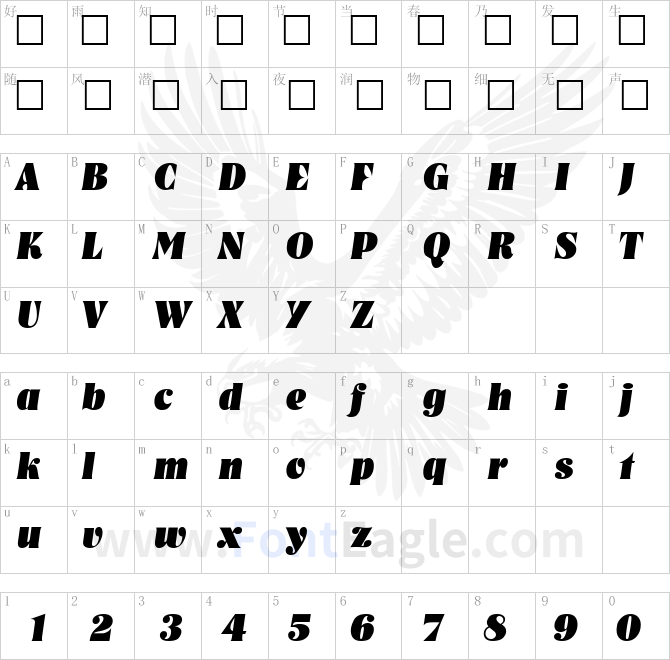
- Font name:Nashville-HeavyIta
- Font Subfamily ID:B & P Graphics Ltd.:Nashville-HeavyIta
- Font Full Name:Nashville-HeavyIta
- Font Version:B & P Graphics Ltd.:05.04.1993
- Postscript:Nashville-HeavyIta